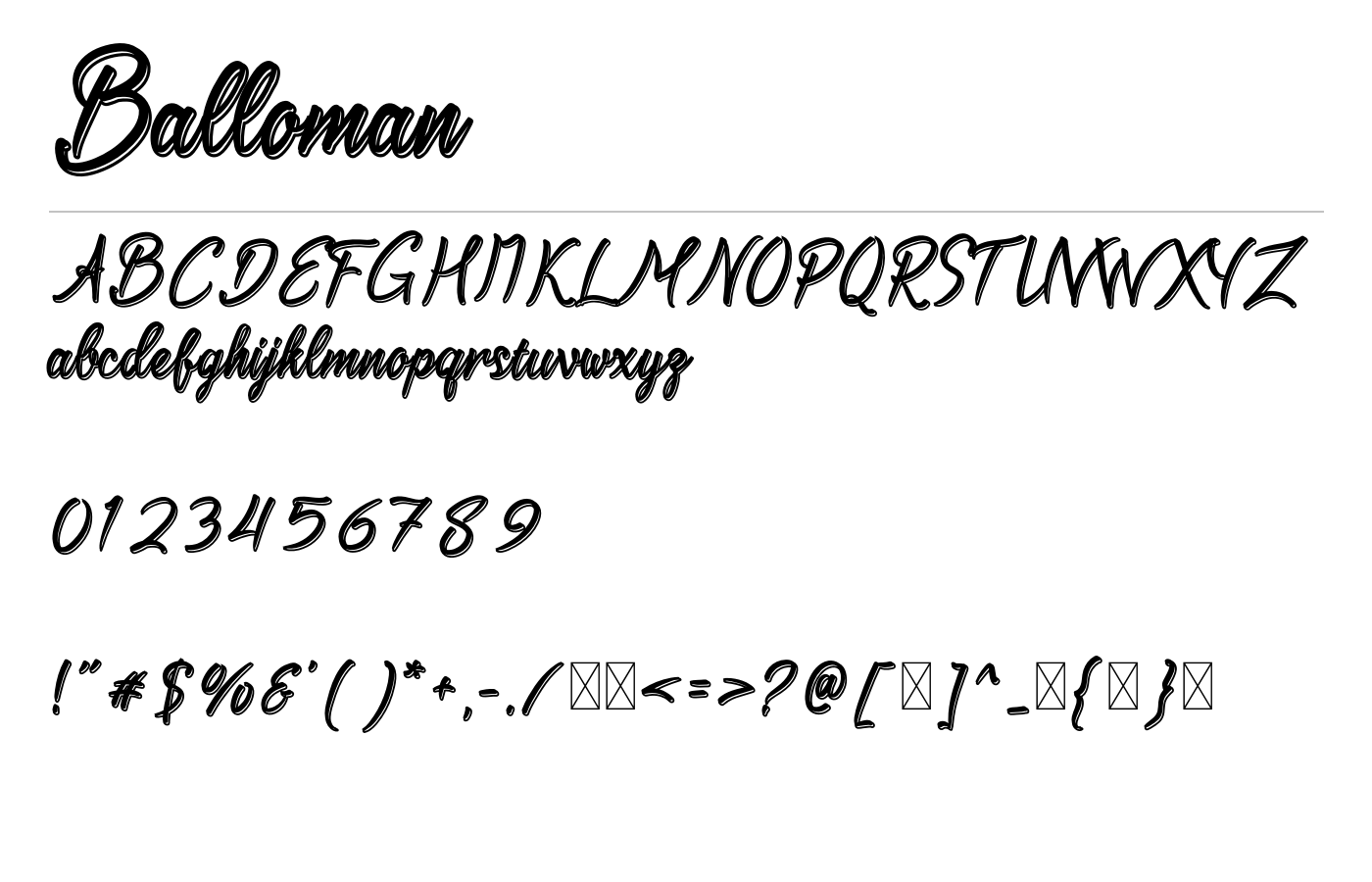
Balloman is a stylish script font with a bold yet elegant feel, featuring smooth, flowing strokes and moderate contrast that give it a modern, handwritten appearance. Its lively letterforms and clear readability make it ideal for branding, logos, and headlines where a personal, creative touch is desired. This font works well in fashion, packaging, and editorial design, adding a warm and inviting personality to any project.
Balloman Font
About Balloman Font